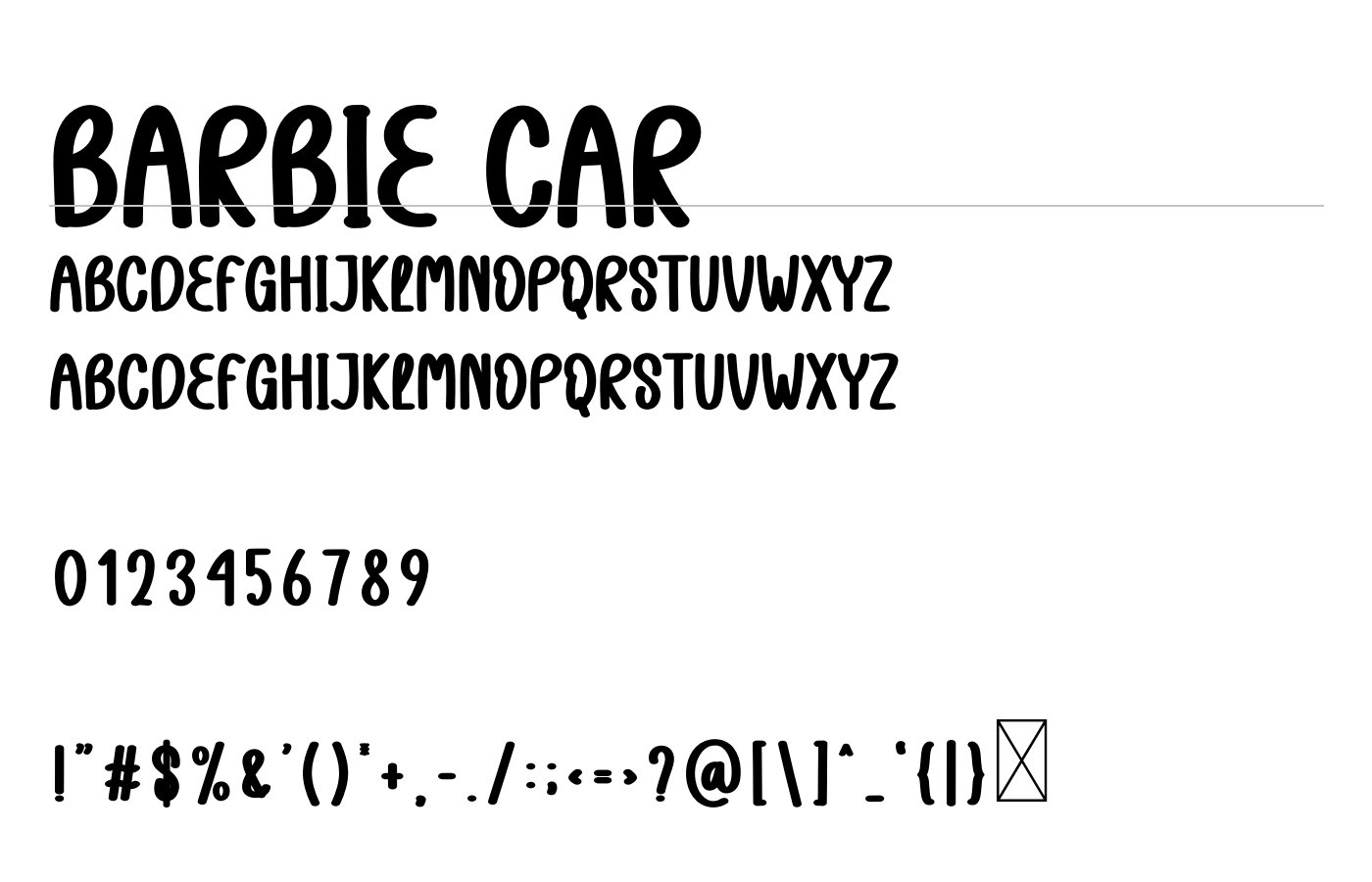
Barbie Car Font is a playful, rounded sans serif typeface with a fun and casual vibe. Its bold weight, slightly condensed width, and tall x-height make it highly legible and energetic, perfect for children’s products, informal branding, and lively headlines. This font exudes a friendly charm that works wonderfully for invitations, posters, or any design needing a touch of youthful warmth and personality.
Barbie Car Font